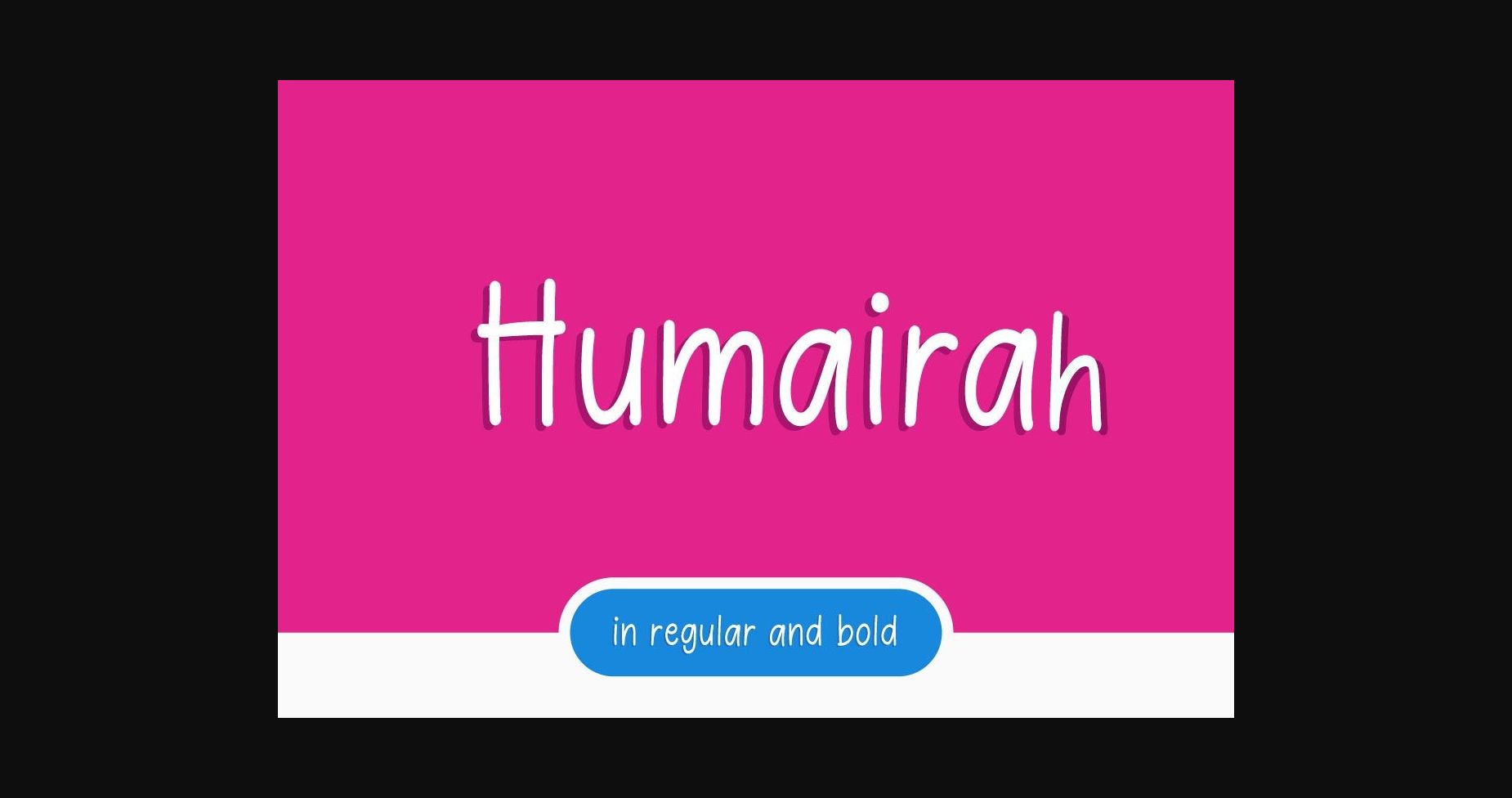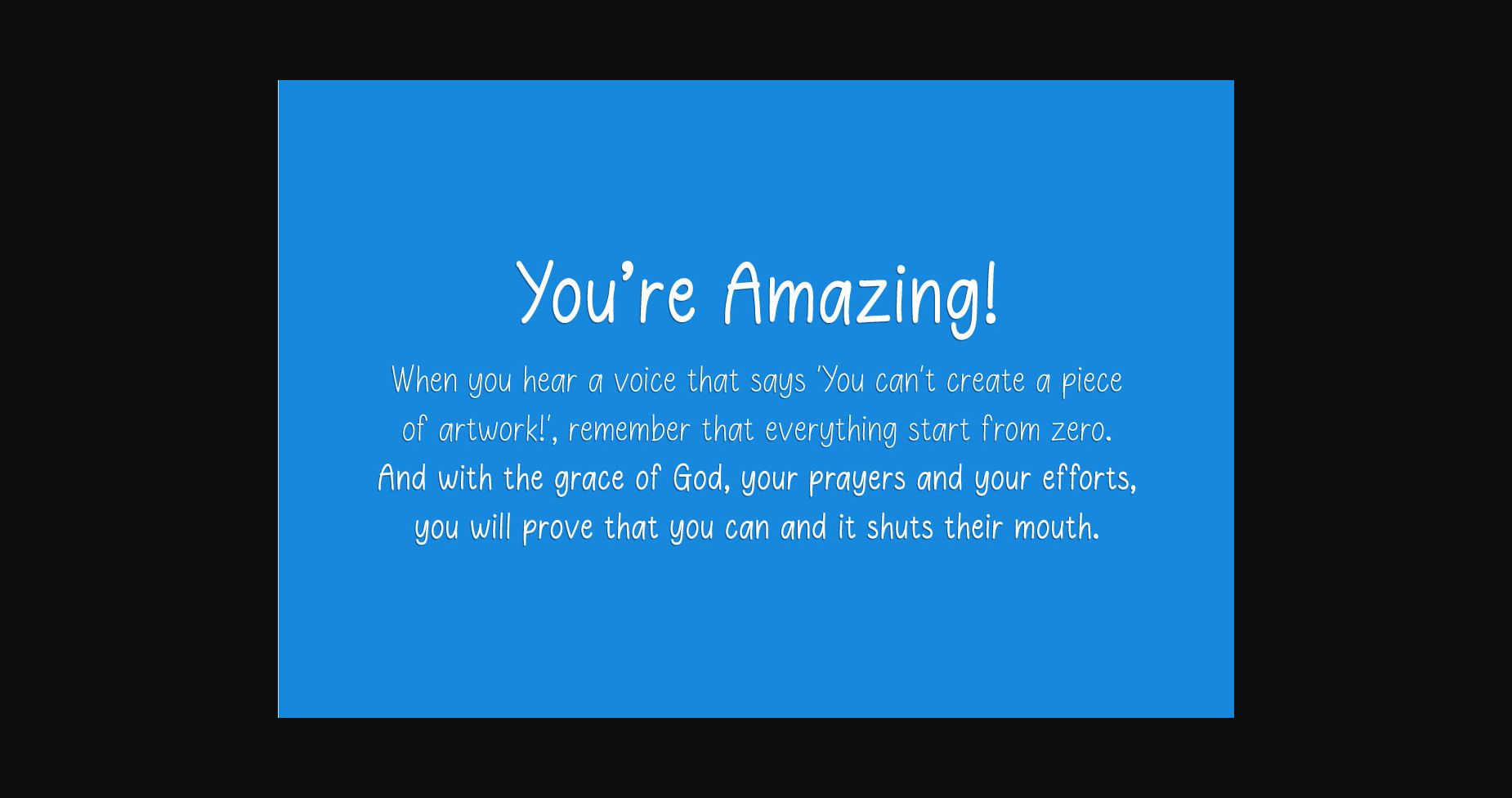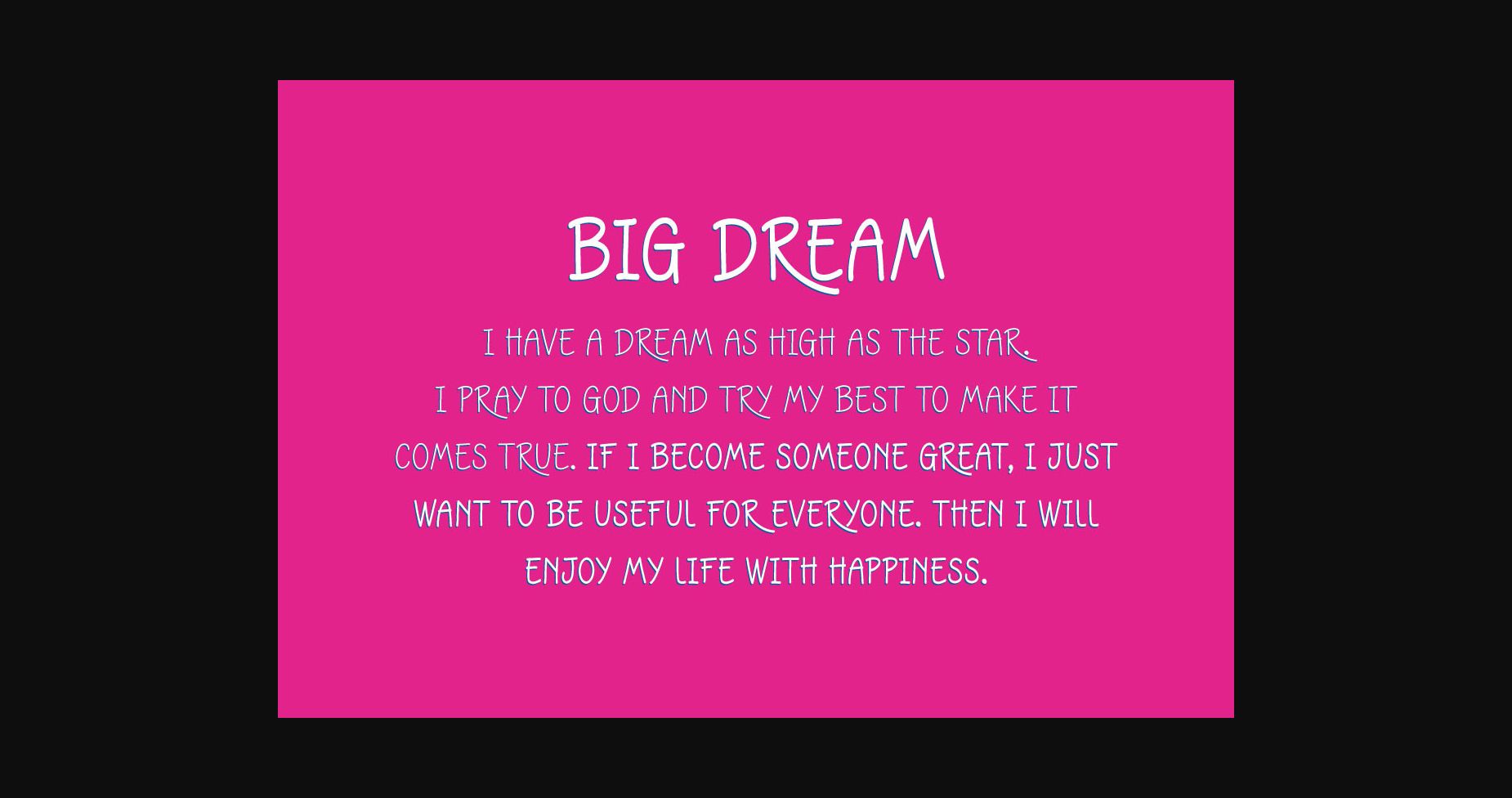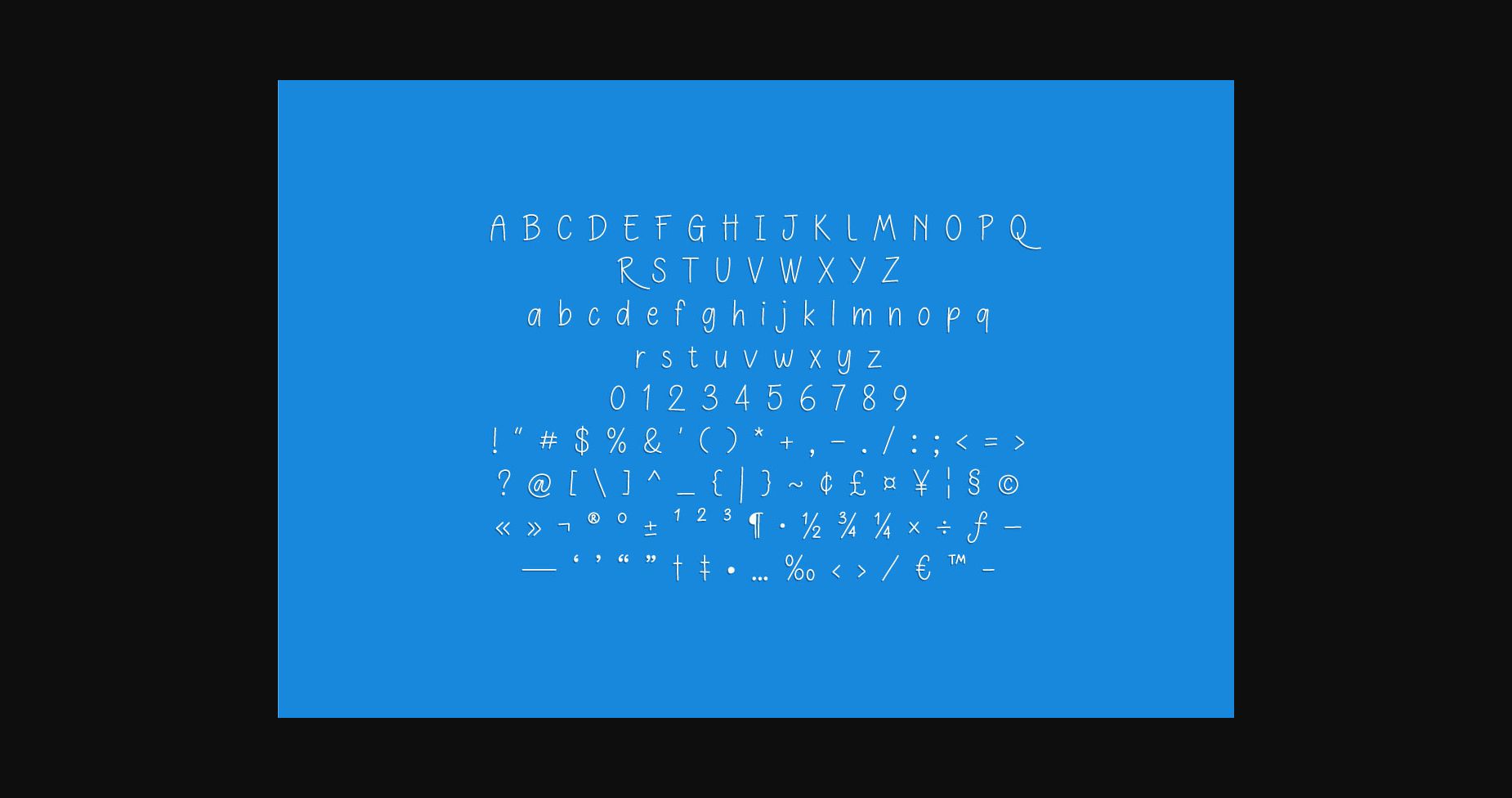
Humairah Font
About Humairah Font
Humairah is a simple and friendly sans serif font. This typeface will enhance your craft with little effort, making your product stand out from the competition.